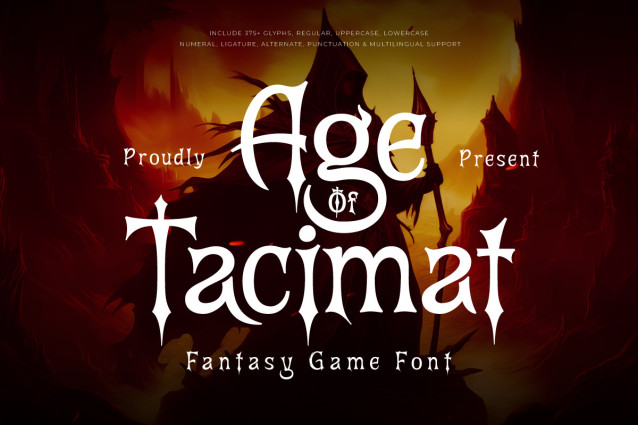
Age Of Taclmat Font
Age Of Taclmat Font, a fantasy game font crafted to evoke the spirit of mythical lands and heroic quests. With its rugged serifs, dramatic curves, and timeless character, this font brings immersive fantasy aesthetics to life—perfect for RPG game titles, epic book covers, dungeon maps, or fantasy movie posters.